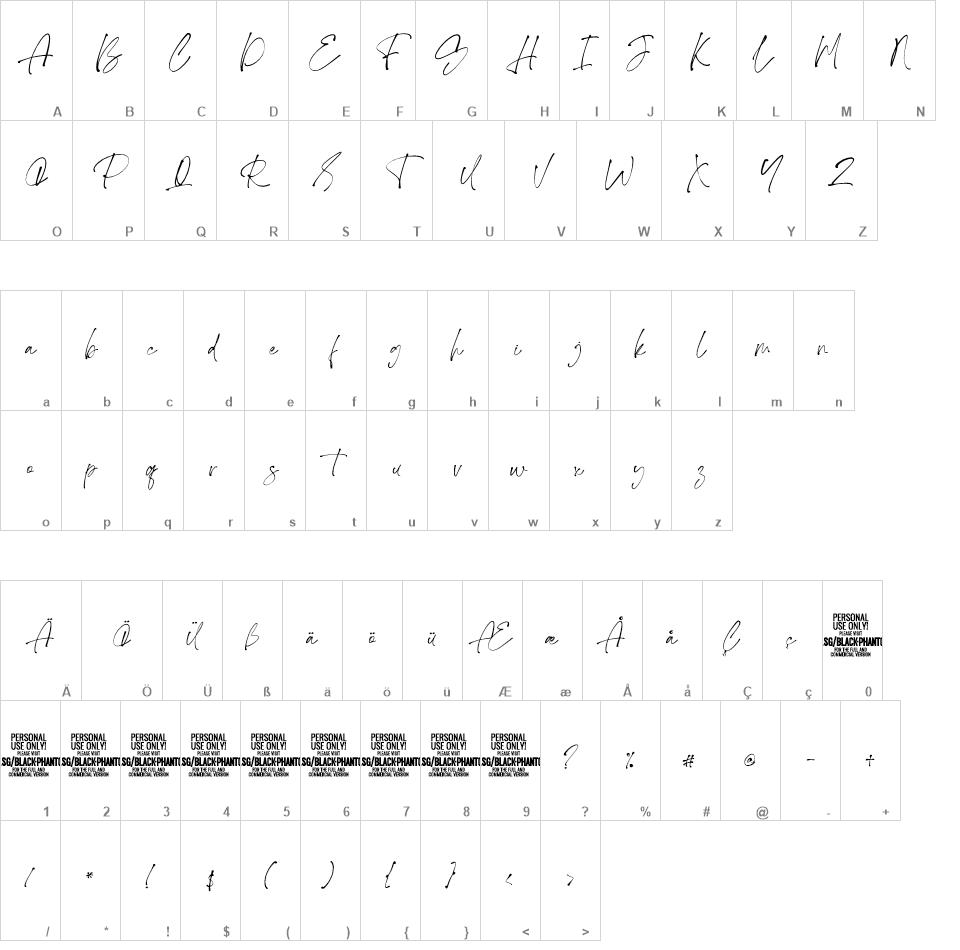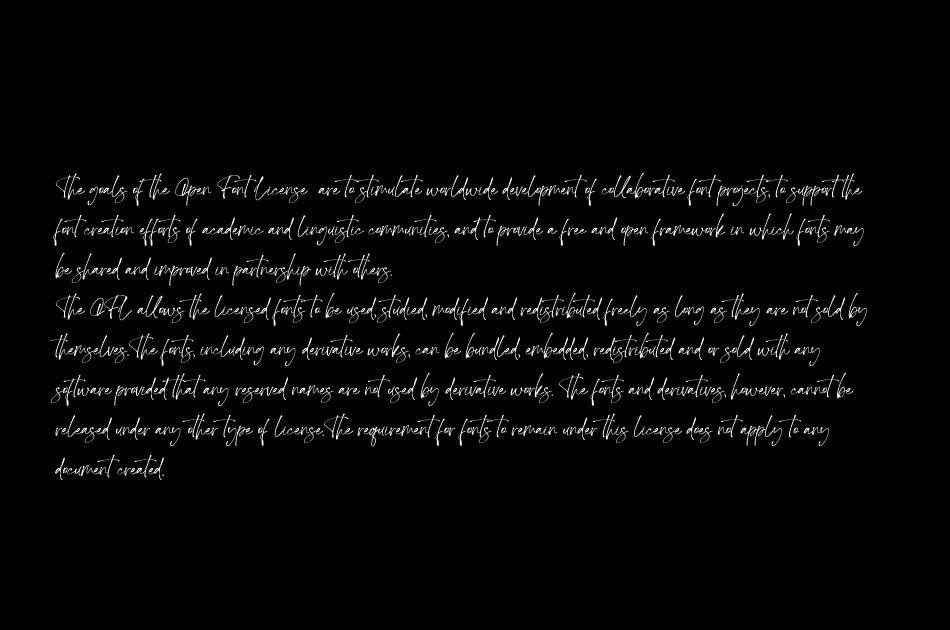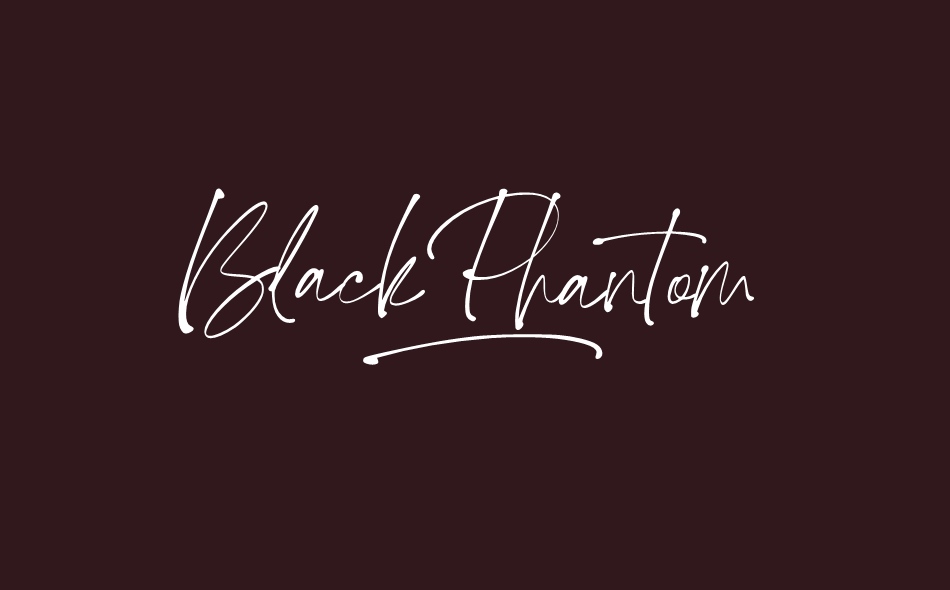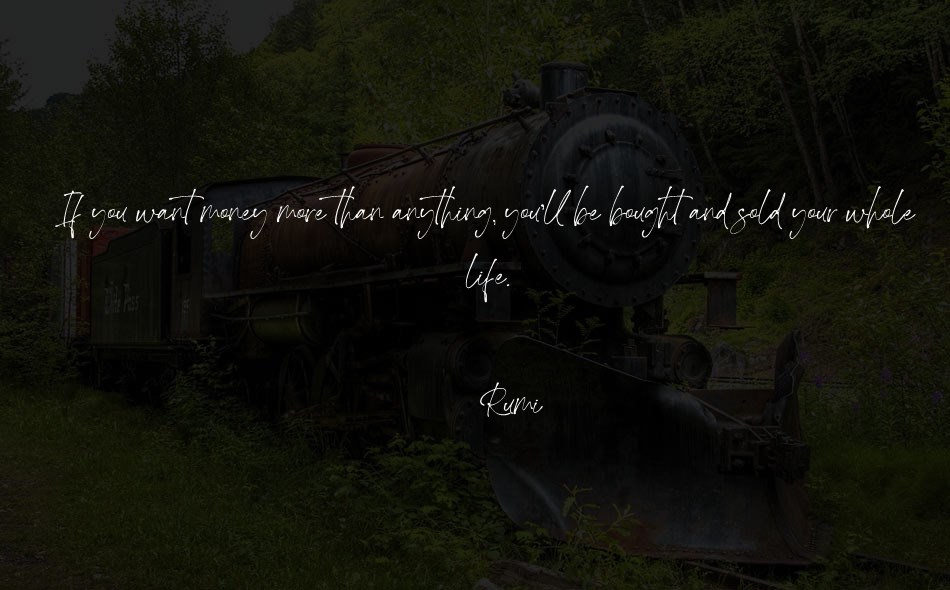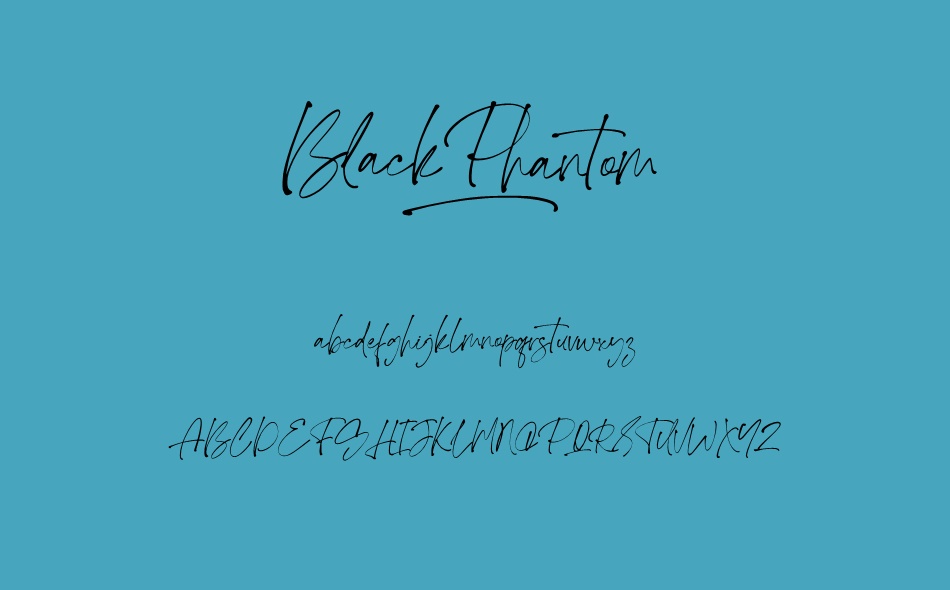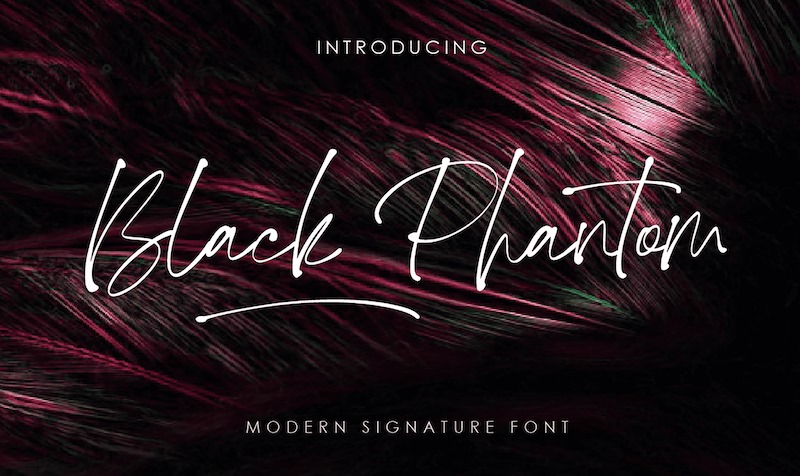
Black Phantom font
Black Phantom is a vivid handwriting typeface.
With wild and active strokes, this calligraphic lettering gives your graphic life and character. Use the script in a modern logotype, for a signature graphic, or for an inspiring quote.
Black Phantom comes in two styles: Upright and Italic.
The font is built with advanced OpenType functionality and has a guaranteed top-notch quality, containing stylistic and contextual alternates, ligatures and more features; all to give you full control and customizability. It has extensive lingual support, covering all Latin-based languages, from North Europe to South Africa, from America to South-East Asia. It contains all characters and symbols you'll ever need, including all punctuation and numbers.